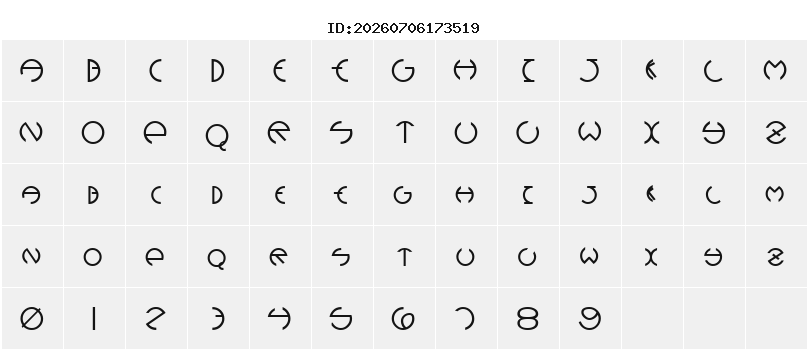
Devil Medium Preview
• Font Name: Devil Medium
• Font ID: Altsys Fontographer 4.1 Devil Medium Normal
• Full Font Name: Devil Medium Normal
• Version: Altsys Fontographer 4.1 12/5/94
• PostScript Name: DevilMediumNormal
• Character Count: 223
About Devil Medium.ttf
Devil Medium.ttf is a modern, elegant sans-serif font designed for ultimate readability and visual harmony. Perfect for branding, headlines, web design, and print materials.